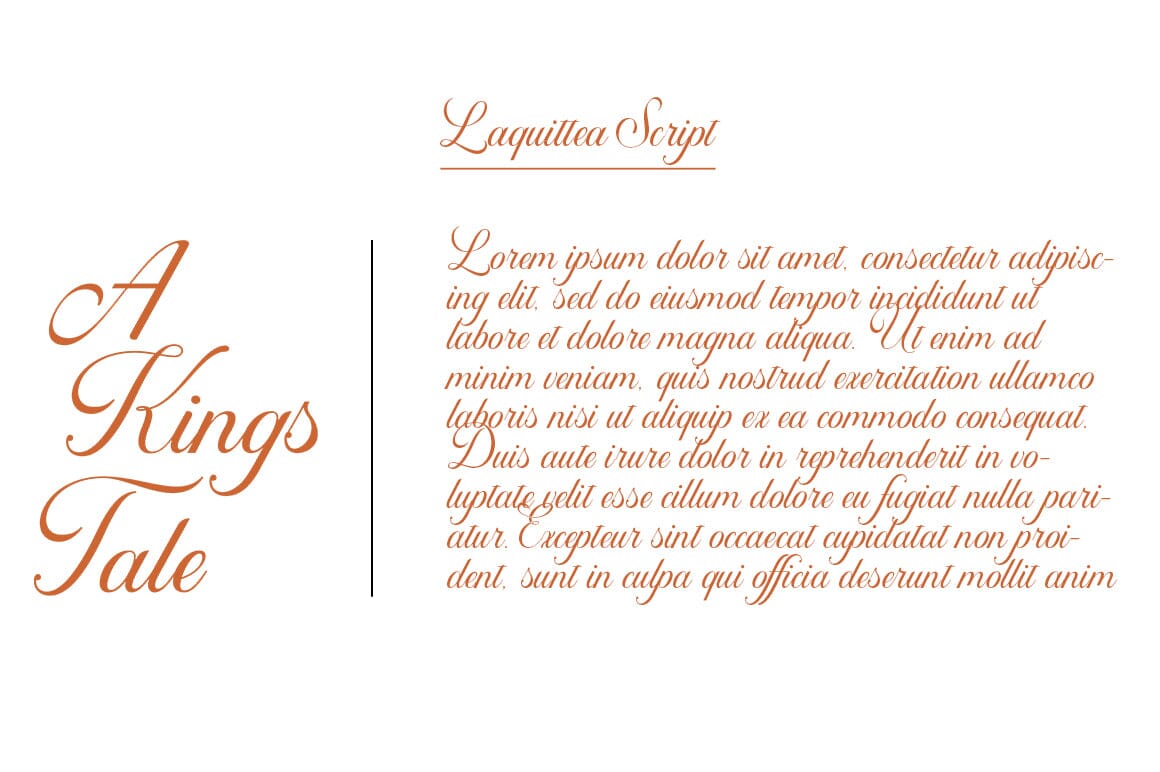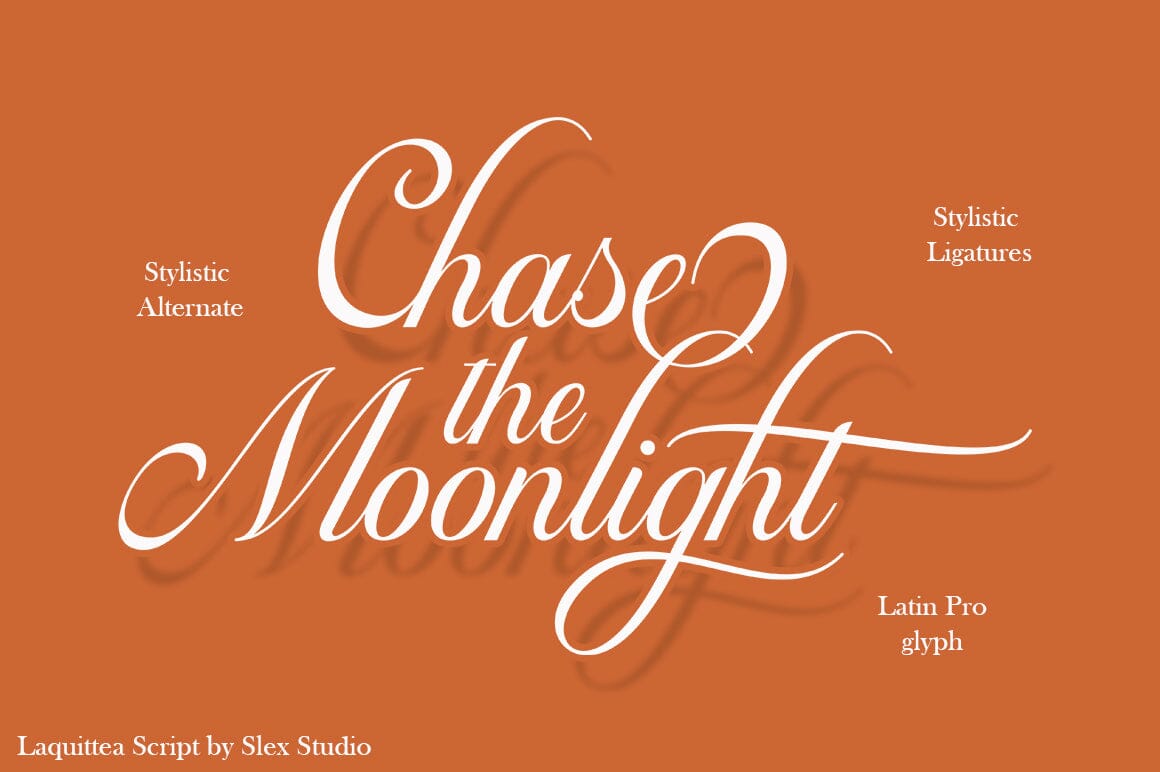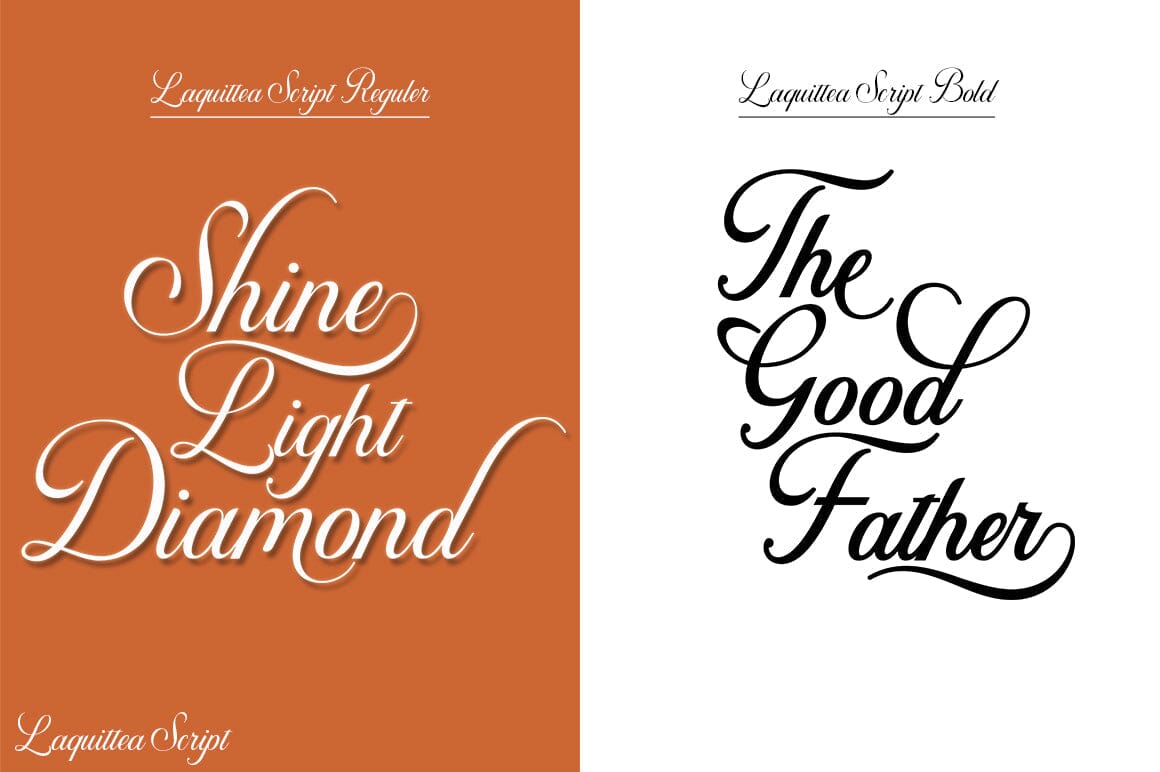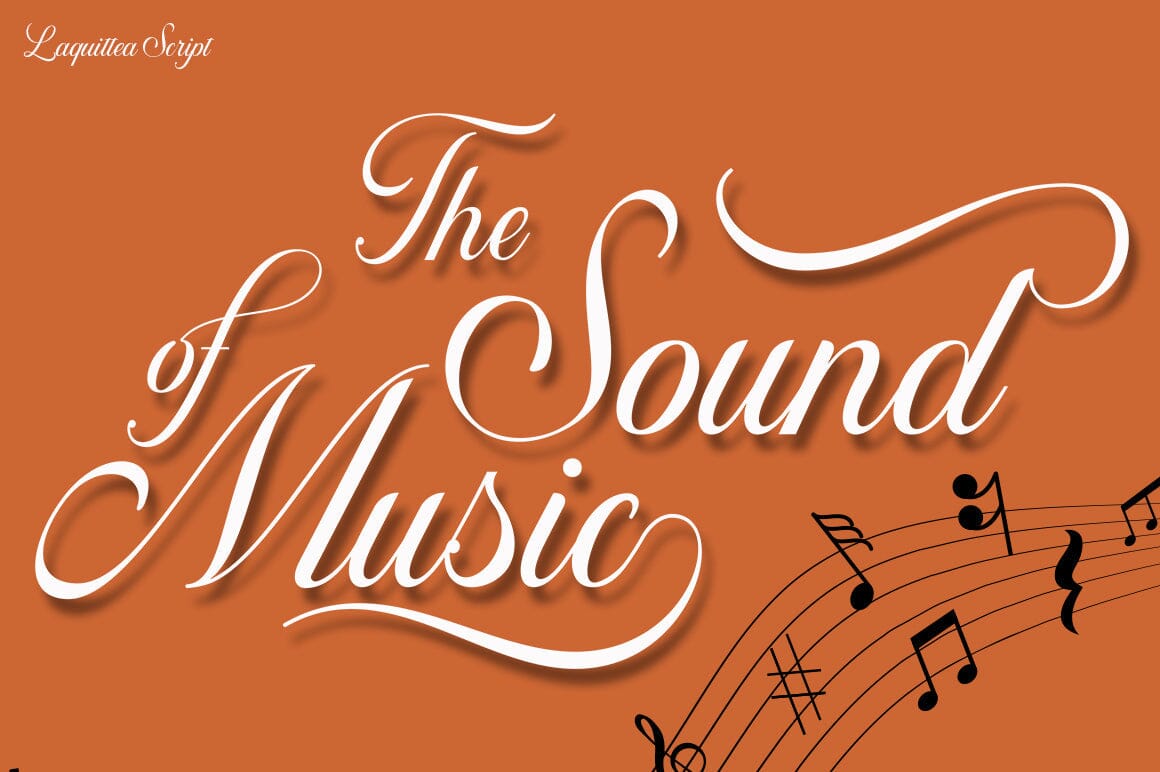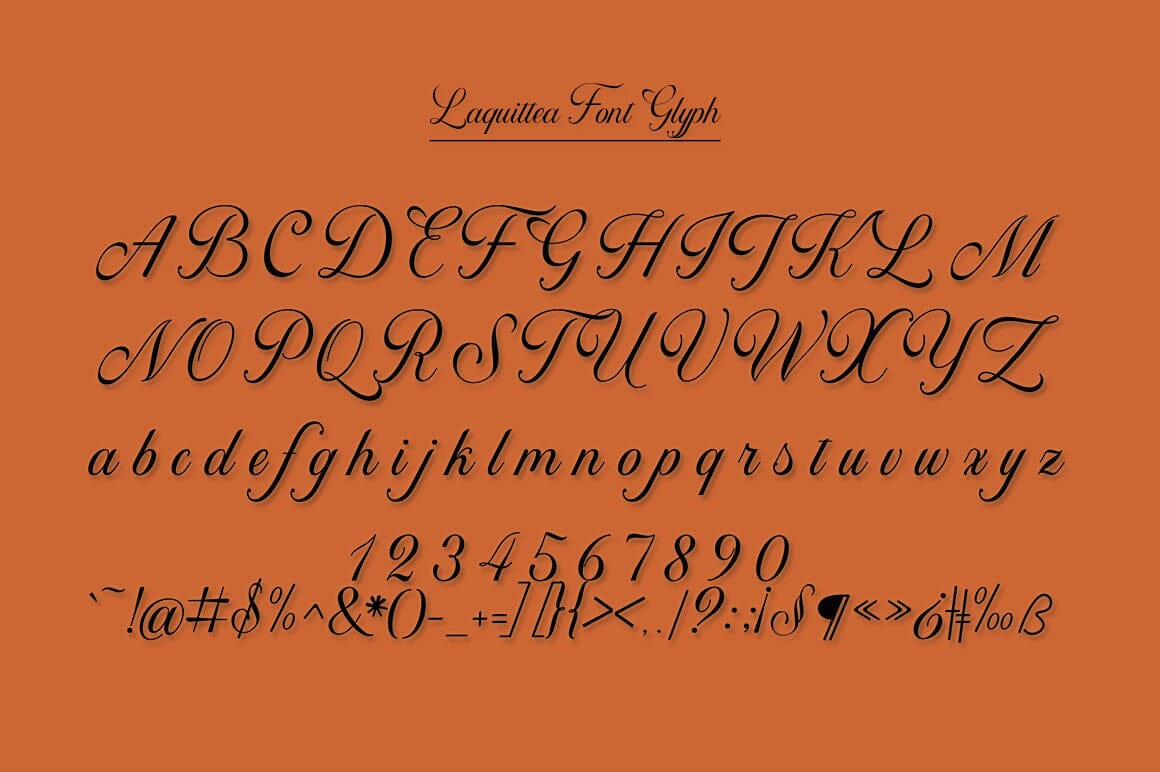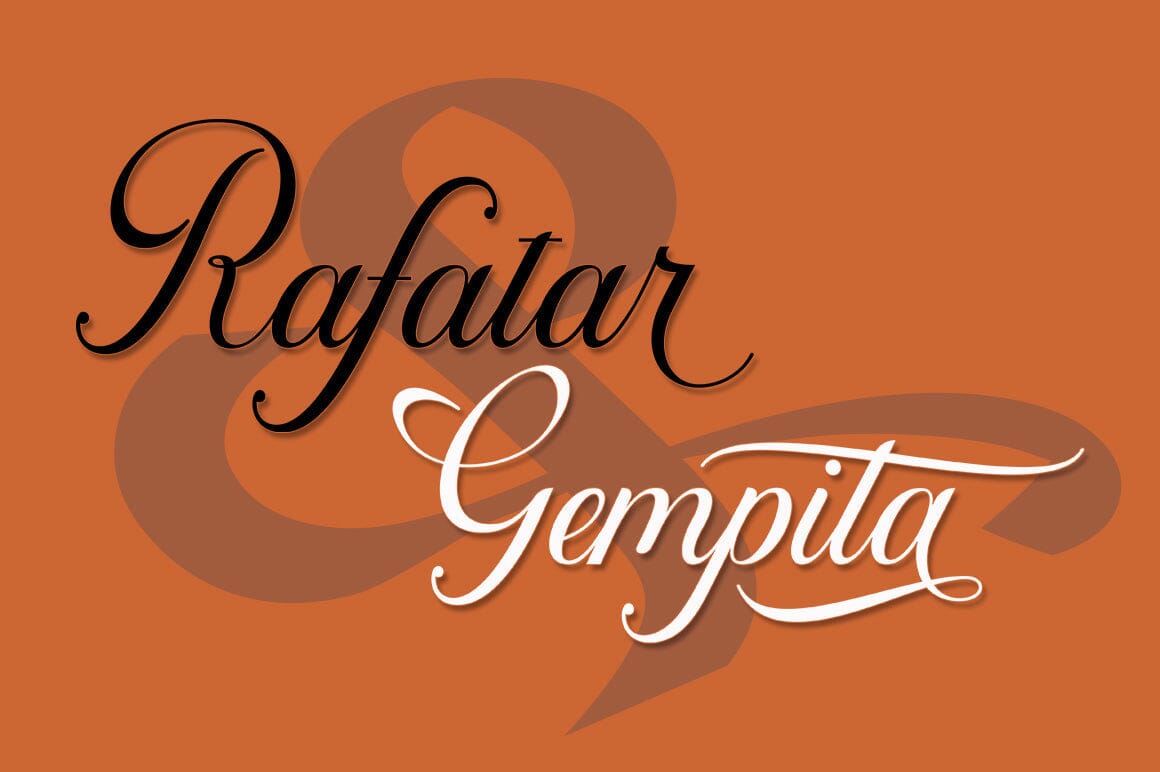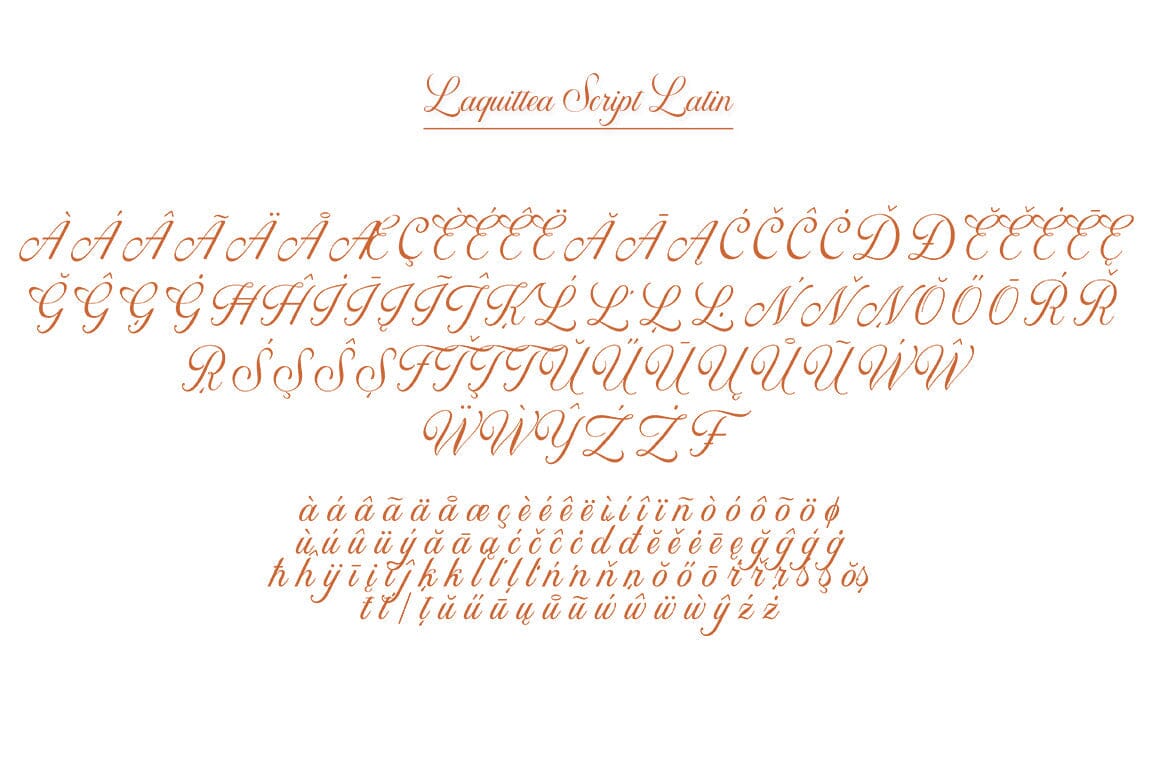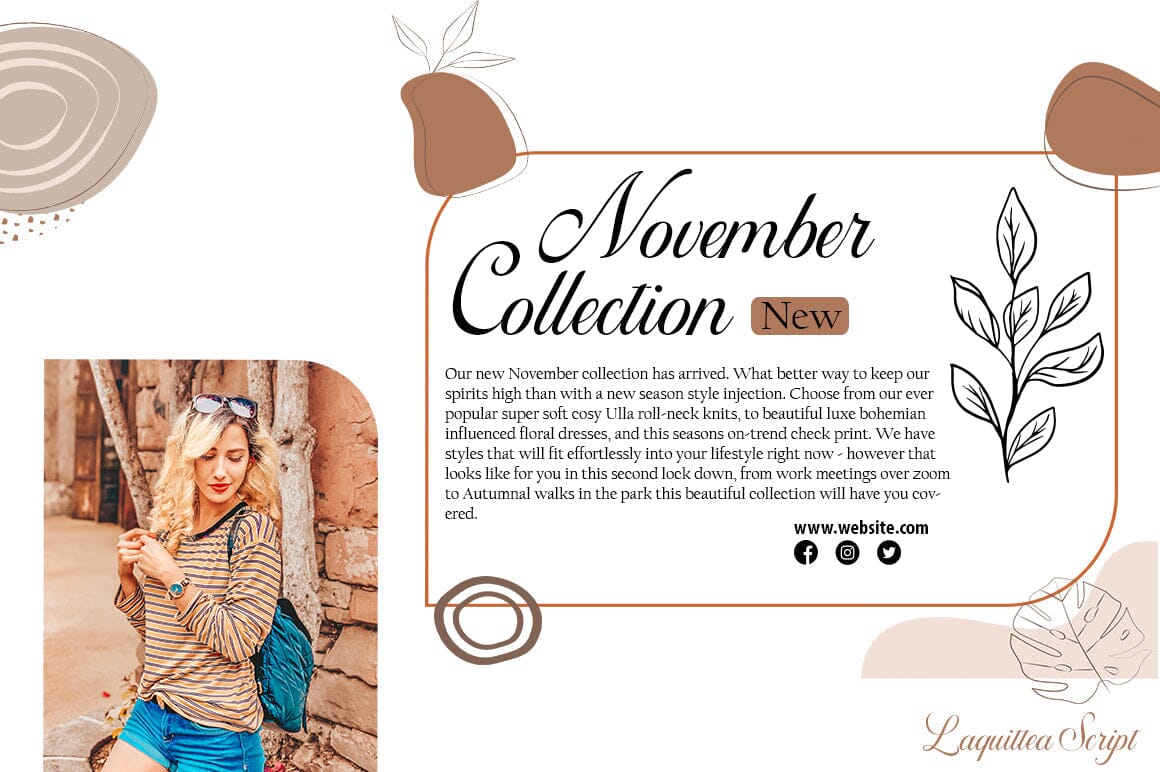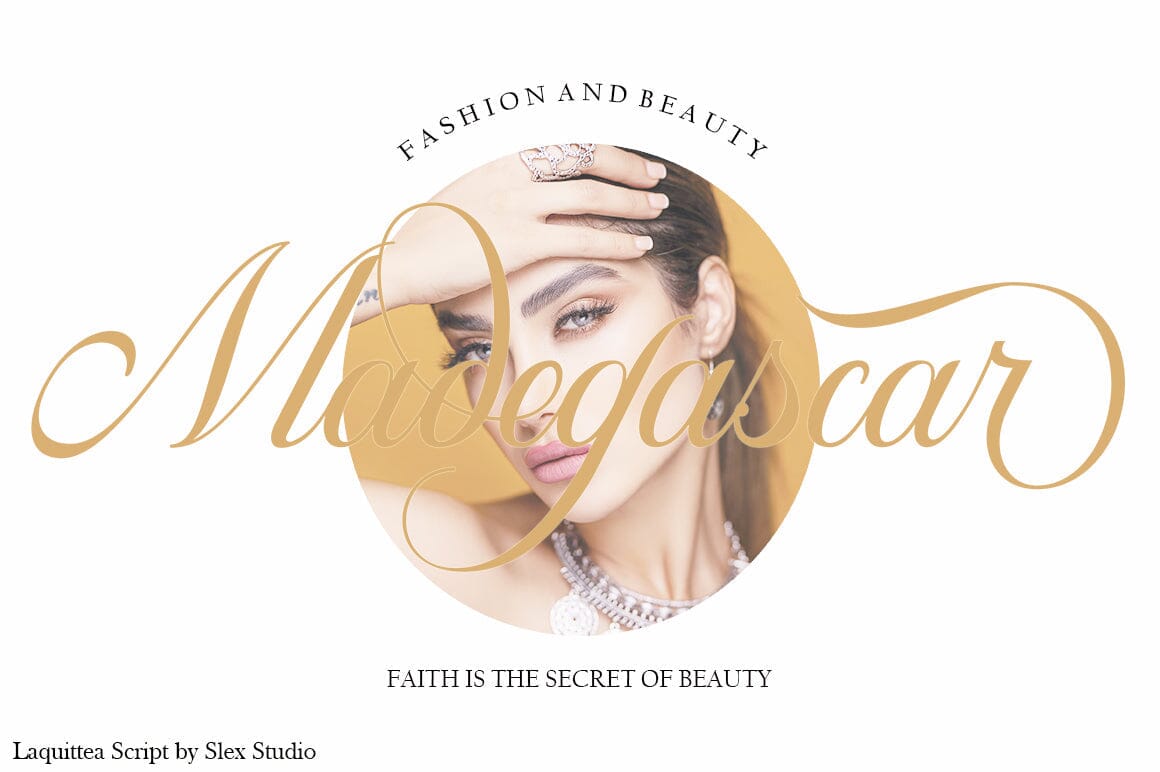
Laquittea Script
About Laquittea Script
new modern calligraphy font – Laquittea . This beautiful script is for those who need elegance and style for their designs and is perfect for wedding invitations, saving date cards and feminine branding. Laquittea has 2 styles Regular and Bold includes a full set of Basic Uppercase and Lowercase Characters, Numbers and Punctuation. Also contains ligatures and many alternative styles to perfectly recreate natural calligraphy (check the preview to see them all). All fonts are available for West European, Central European and Southeast European Languages. You can check your language typing characters in the text box below. What will you get? Laquittea (OTF, TTF) Laquittea Bold (OTF, TTF) If you have any questions about my products, feel free to write me a message or contact me by message here on FontBundles. Thank you so much for checking out my shop!